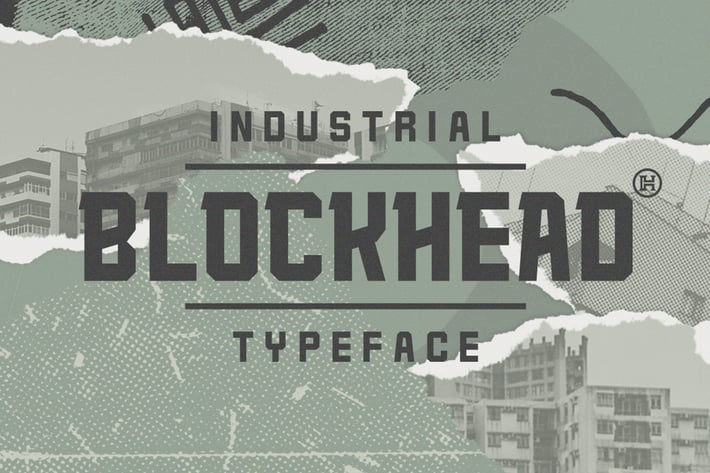
Blockhead Typeface|Bold Geometric Font
BLOCKHEAD is a robust slab serif font, designed to draw attention and highlight any project. Even though the inspiration for this font comes from the industrial department, Blockhead feels indeed powerful and bold, but it has also a modern and friendly touch/feel. This typeface has three weights, geometric thick strokes with a thin, sharp slab serif in the upper part of the letterform. Each weight has 252 glyphs, uppercase and lower uppercase and extensive Latin script support. Blockhead is perfect for industrial logo designs, bold posters,headers even for small and block text.
Add emphasis to your work and express with the vibrant Blockhead!
Blockhead Bold
Blockhead Black
Extensive Latin script language support
Upper and lower uppercase font